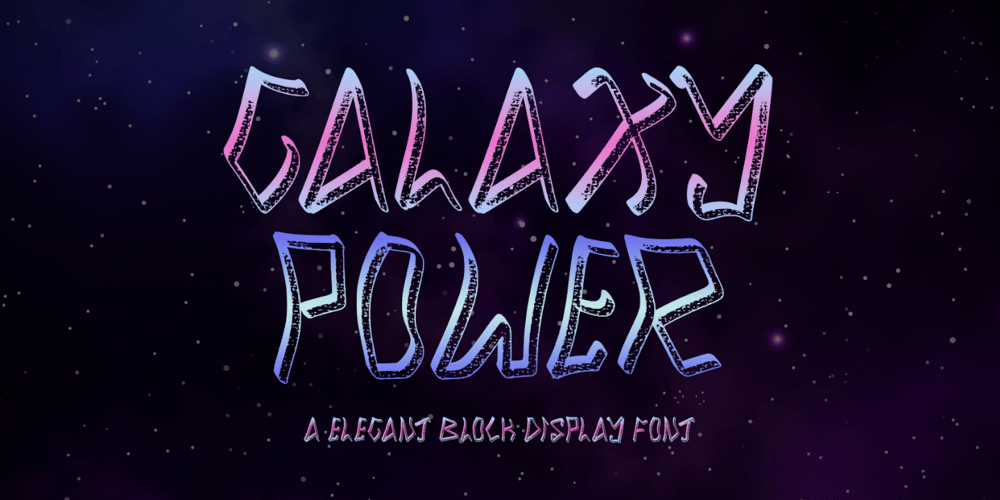
Galaxy Power Font Family was designed by Isroni Yoga Prasetya and published by Yoga Letter. Galaxy Power contains 1 styles and family package options. “Galaxy Power” is an elegant display block font that is perfect for action movie titles, graffiti, 3D works, advertisements, banners, posters, branding, stickers, mockups, and more. This font is equipped with uppercase, lowercase, numerals, punctuation, and multilingual support.